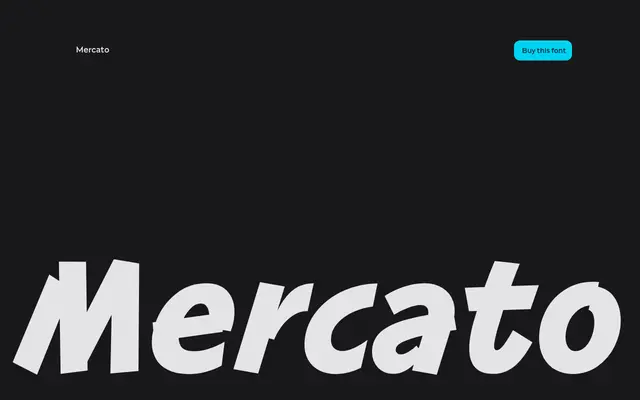
Mercato
A display family rooted in hand-painted South American price tags, blending brush-script irregularity with geometric construction across five weights plus italics.
Designed by Mateusz Machalski over roughly three years, Mercato draws on the visual energy of hand-lettered market price tags and a rediscovered thick display face called Chrysler. The family balances spontaneous, organic line work against drafting-based geometry, enabling full interpolation across Light to Bold with matching italics and a variable font. Suited to logos, posters and headlines where warmth and movement are needed without sacrificing structural clarity.
Mercato sits at the intersection of brush script and geometric display lettering, inspired by hand-painted price tags and a thick display typeface called Chrysler, with organic irregularities constrained by drafting principles.